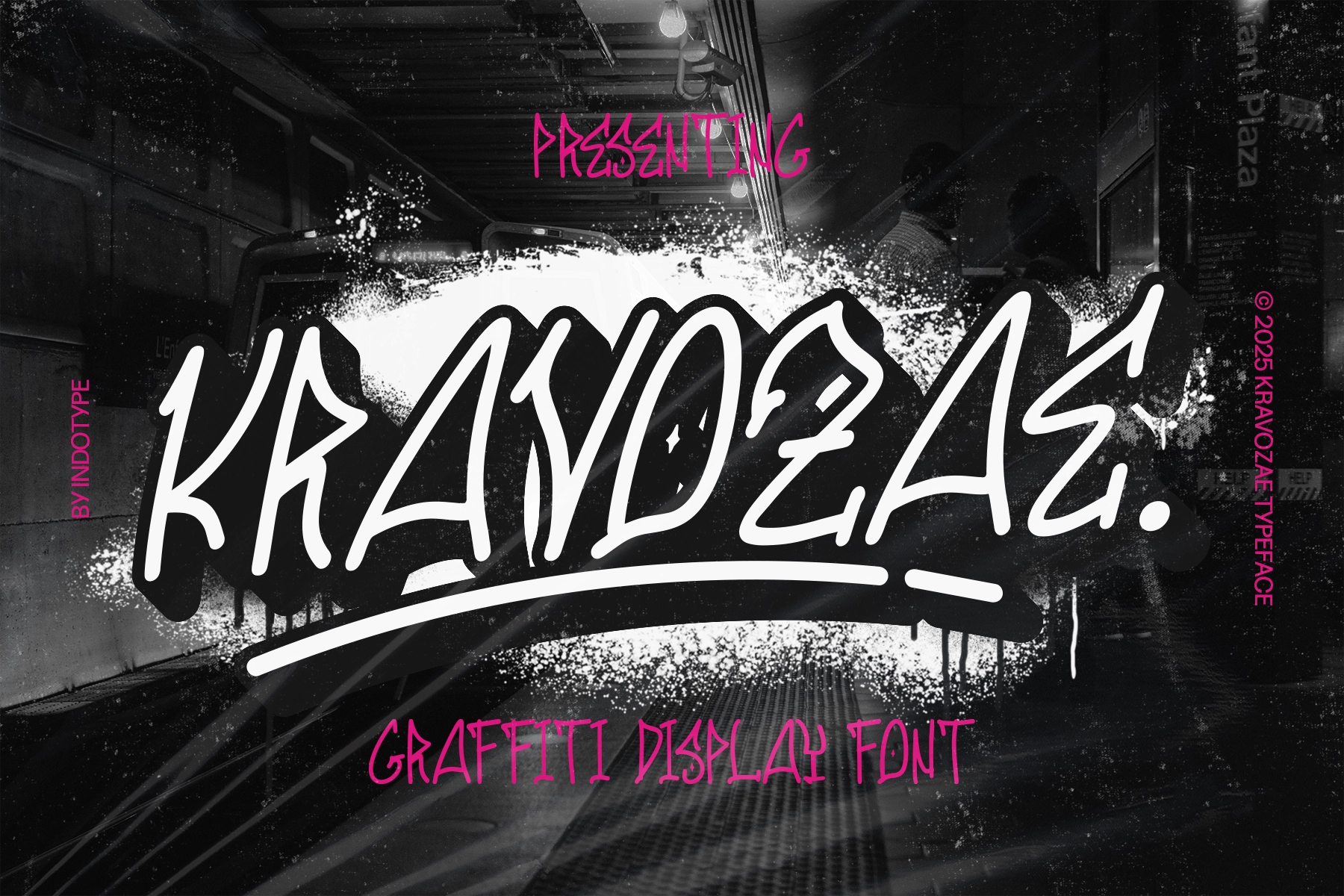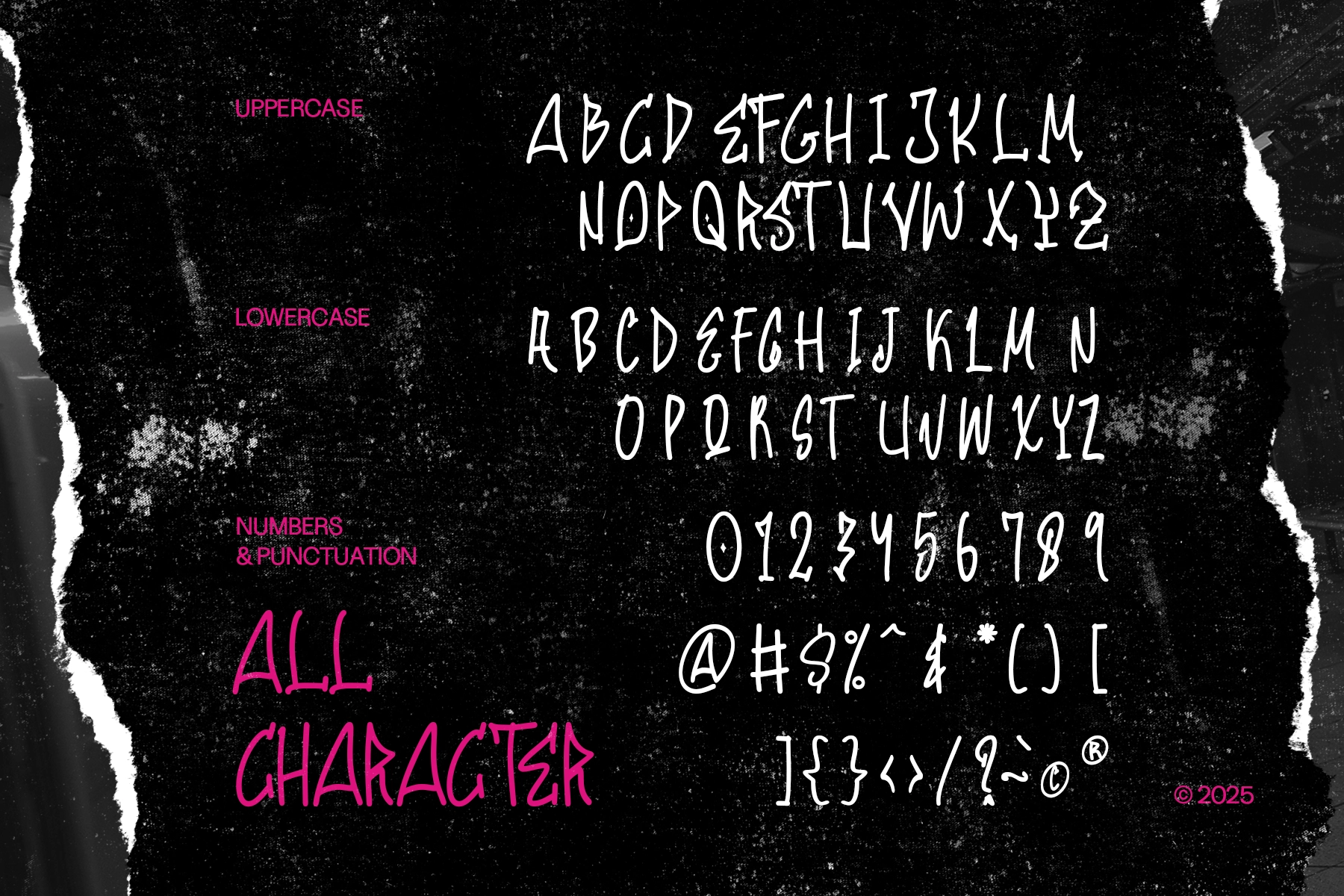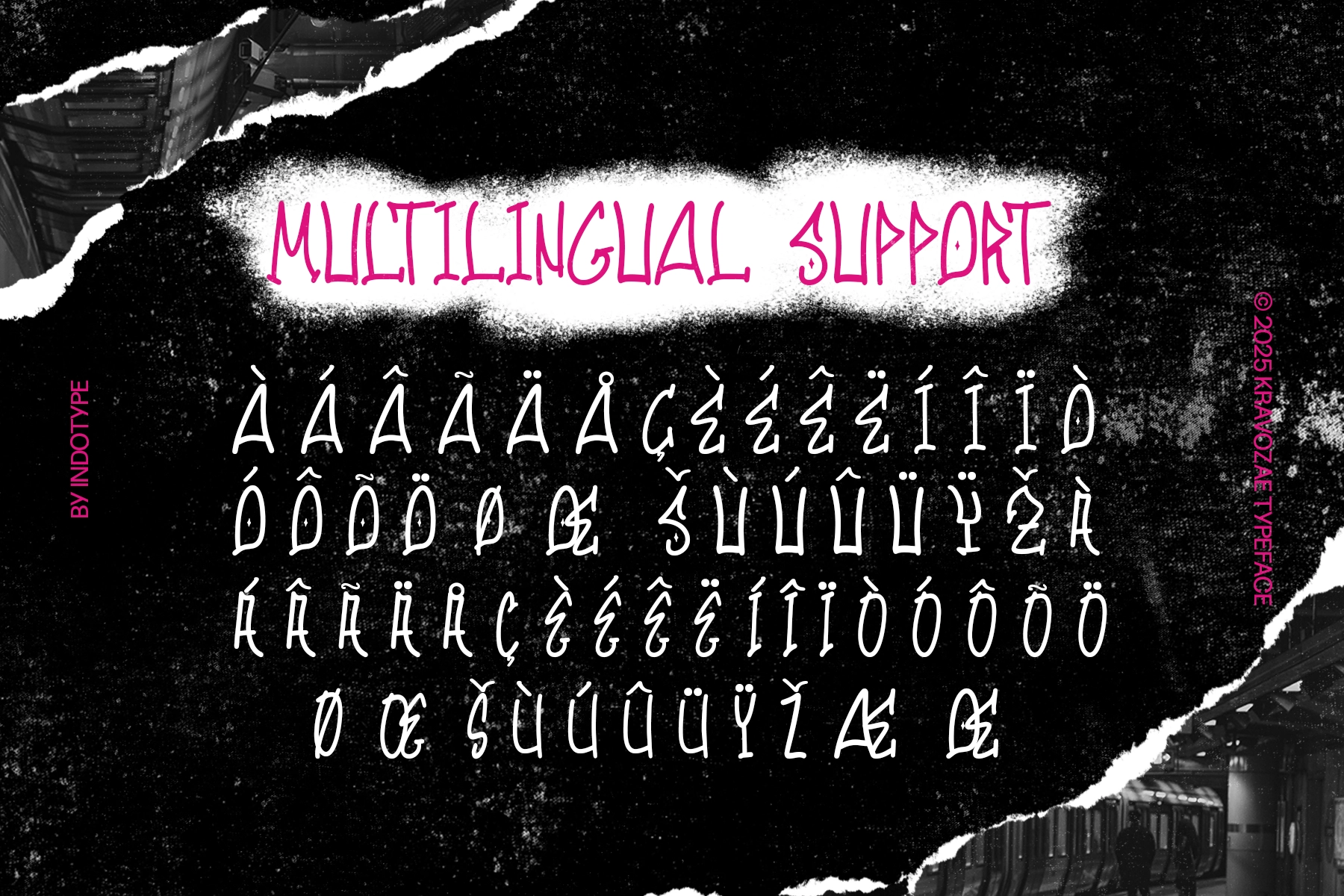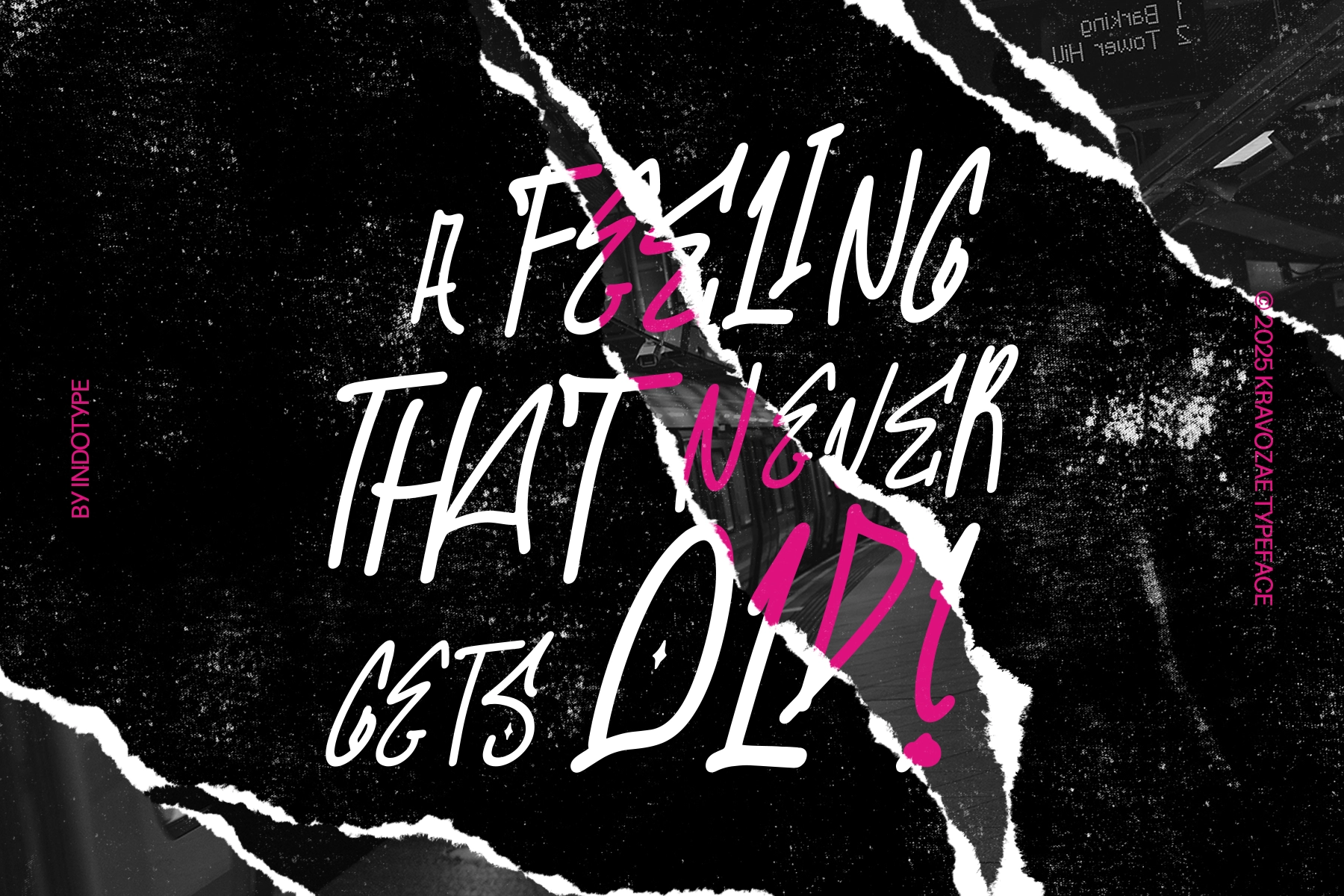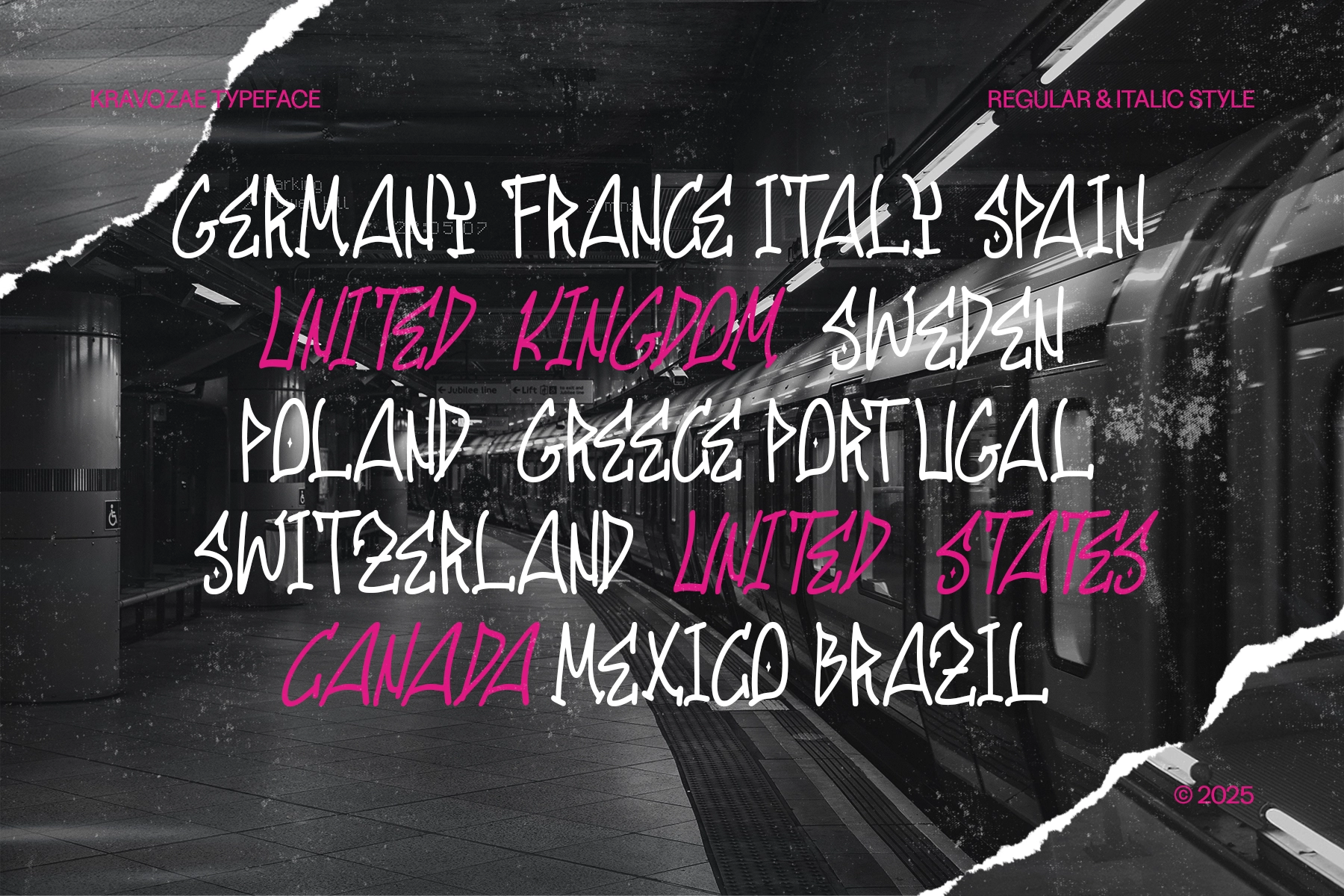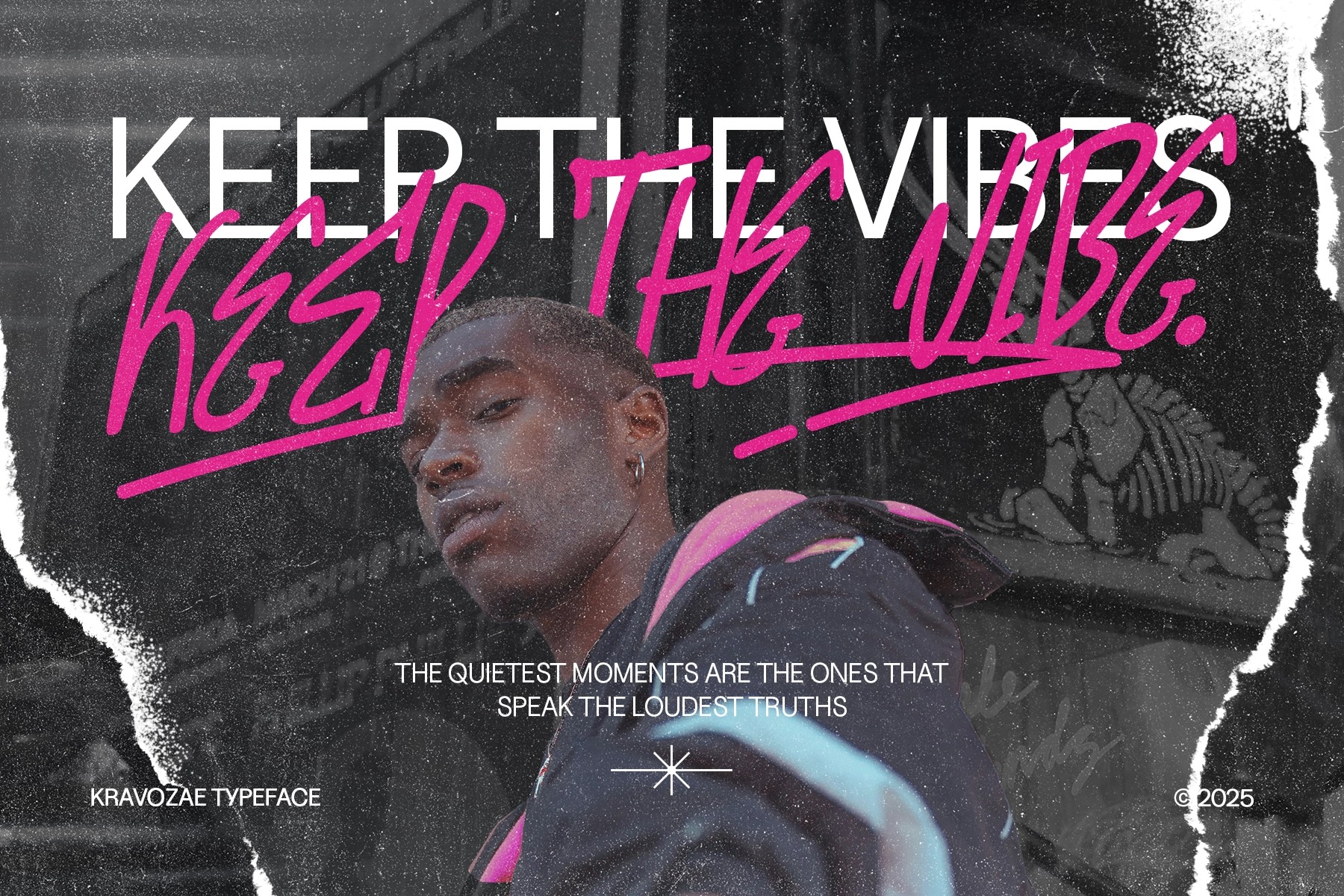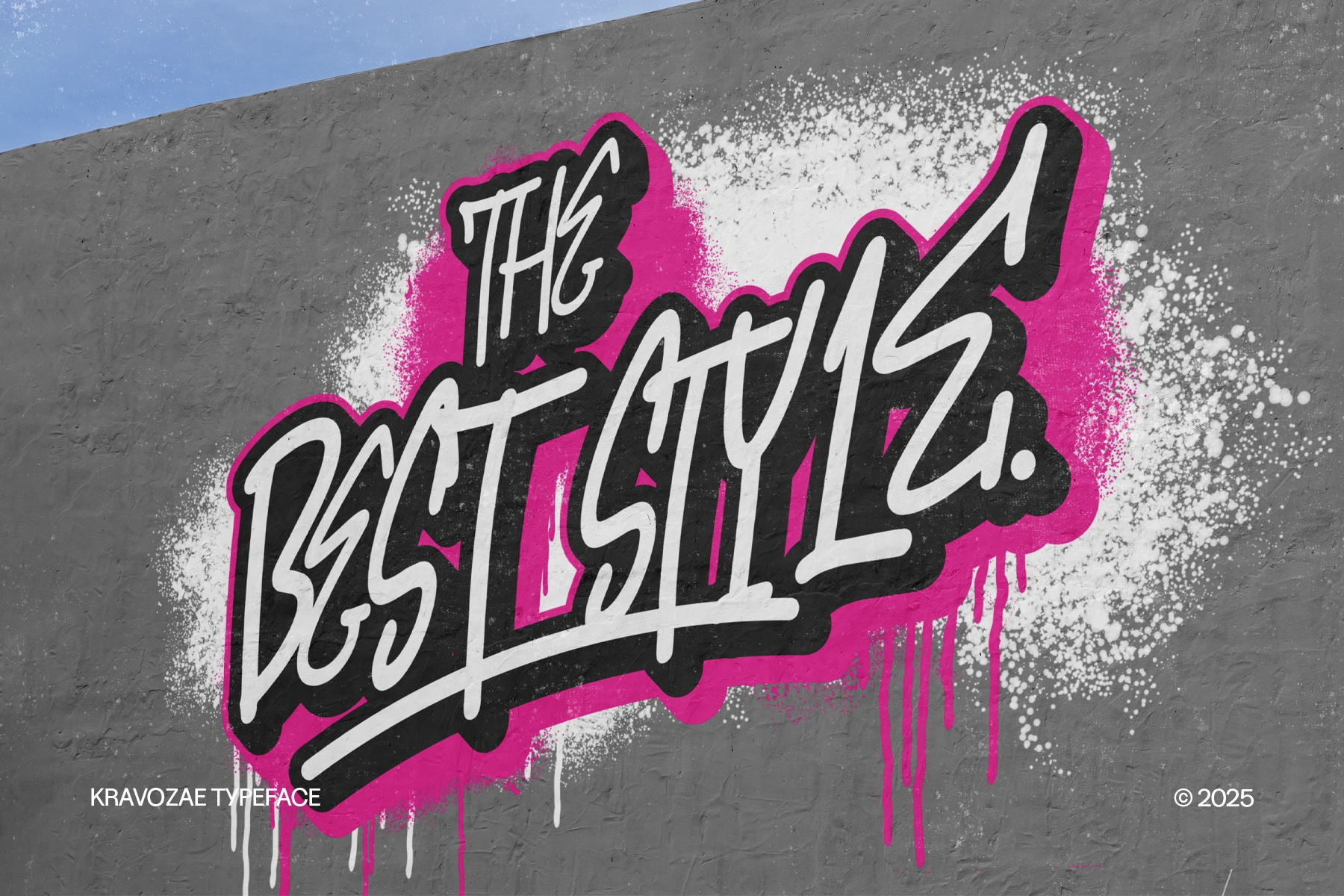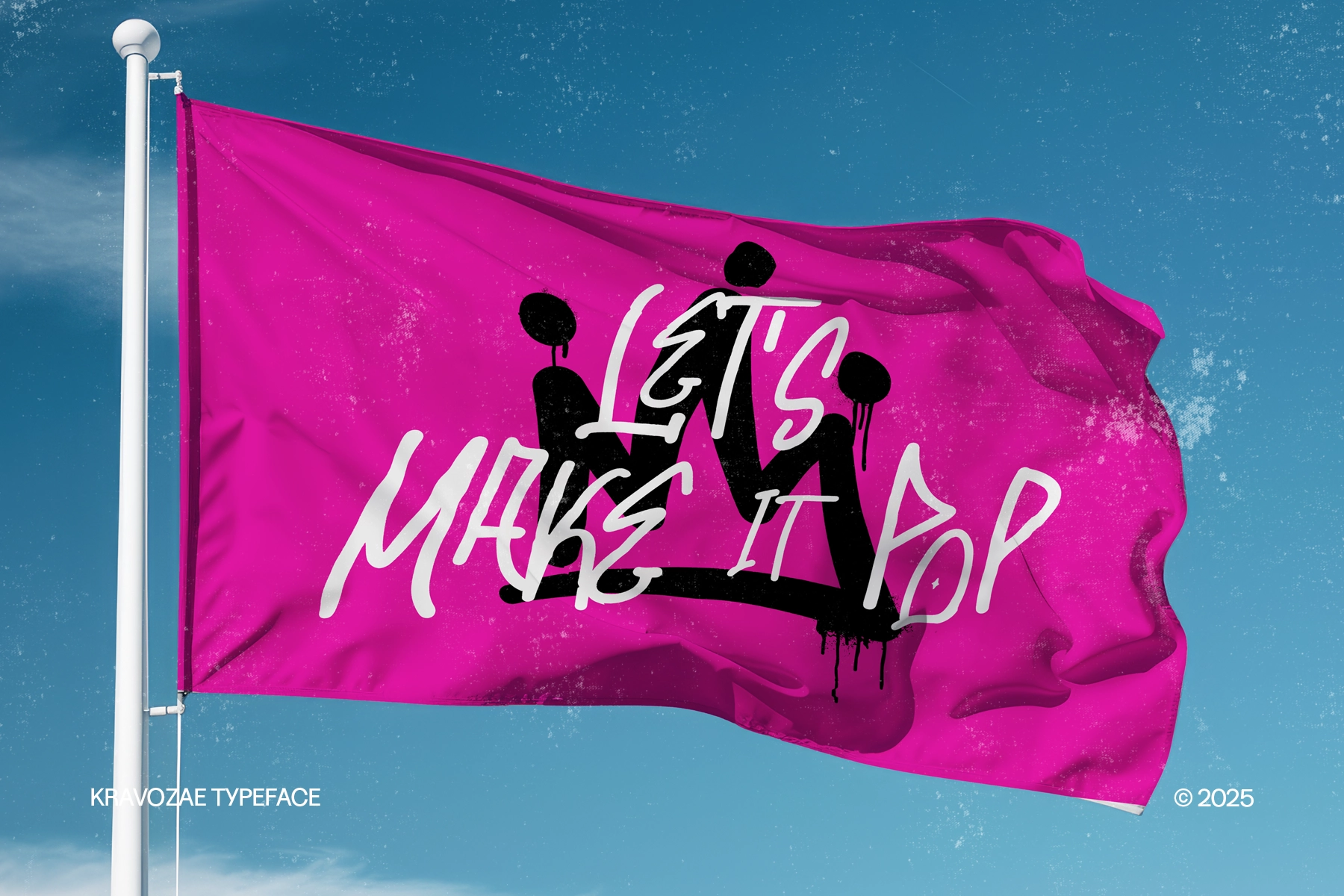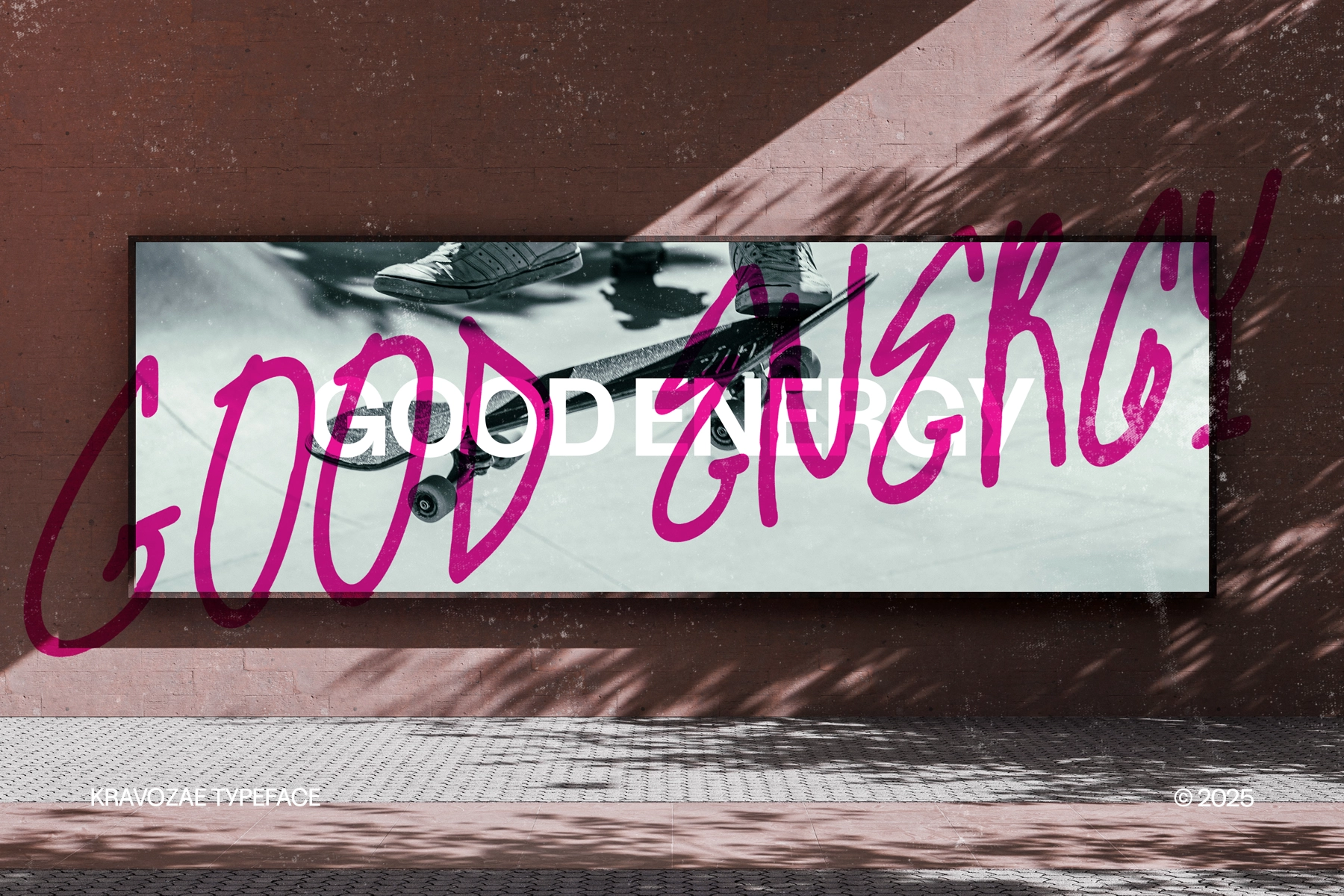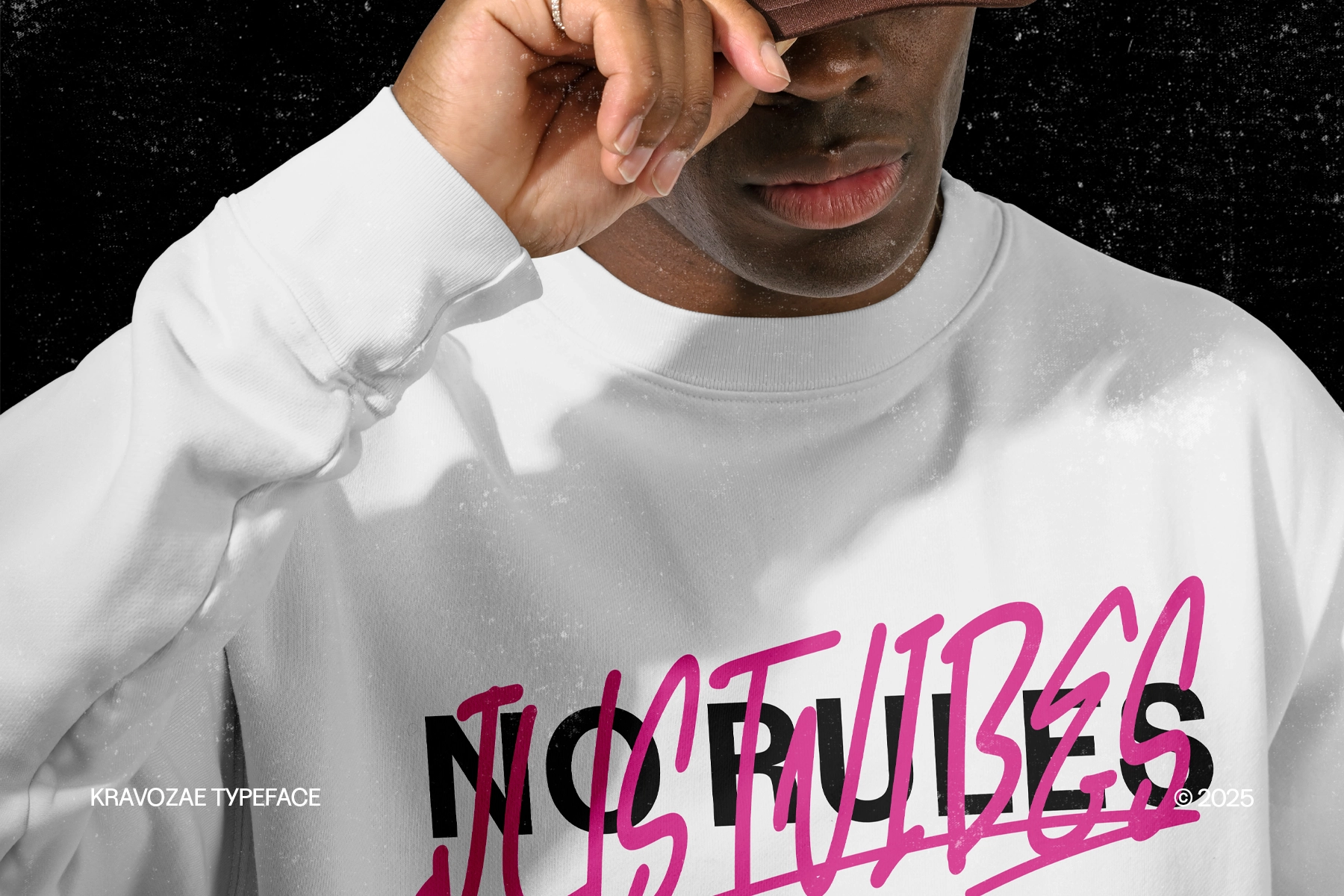
Kravozae - Graffiti Display Font
This graffiti display font is loud, jagged, and fast on purpose, with sharp marker strokes, rough edges, and a street-poster attitude. It carries an urban voice that suits aggressive headlines, music visuals, and artwork that needs to look hand-hit rather than polished by committee.
Kravozae is a strong pick for streetwear branding, skate graphics, album covers, gig posters, event flyers, sports edits, YouTube thumbnails, game titles, stickers, zines, murals, merch drops, and social media campaigns. The set includes regular and italic styles, uppercase and lowercase letters, numerals, punctuation, alternates, ligatures, and multilingual support for bold print and digital work.
- 2 styles: Regular, Italic